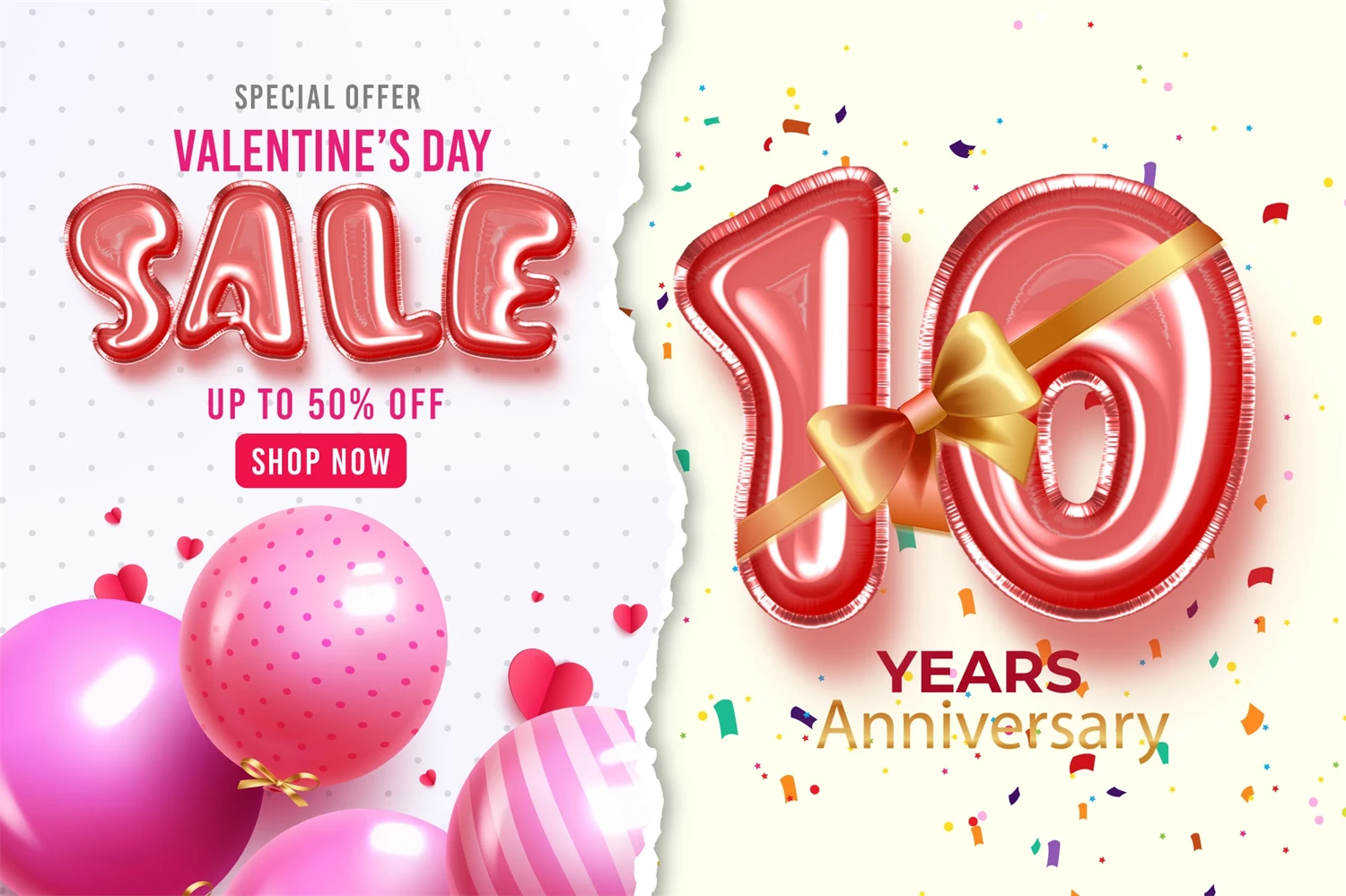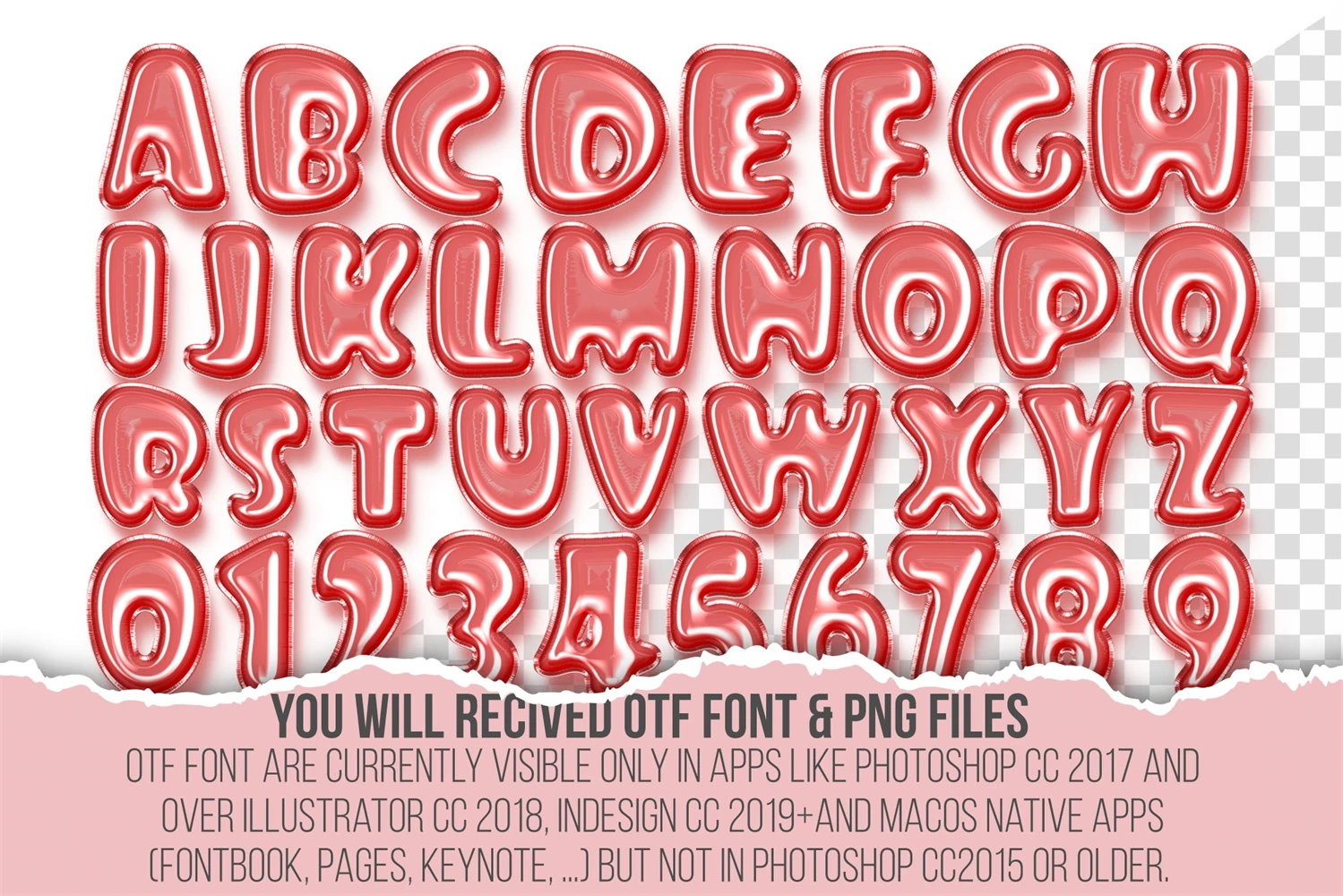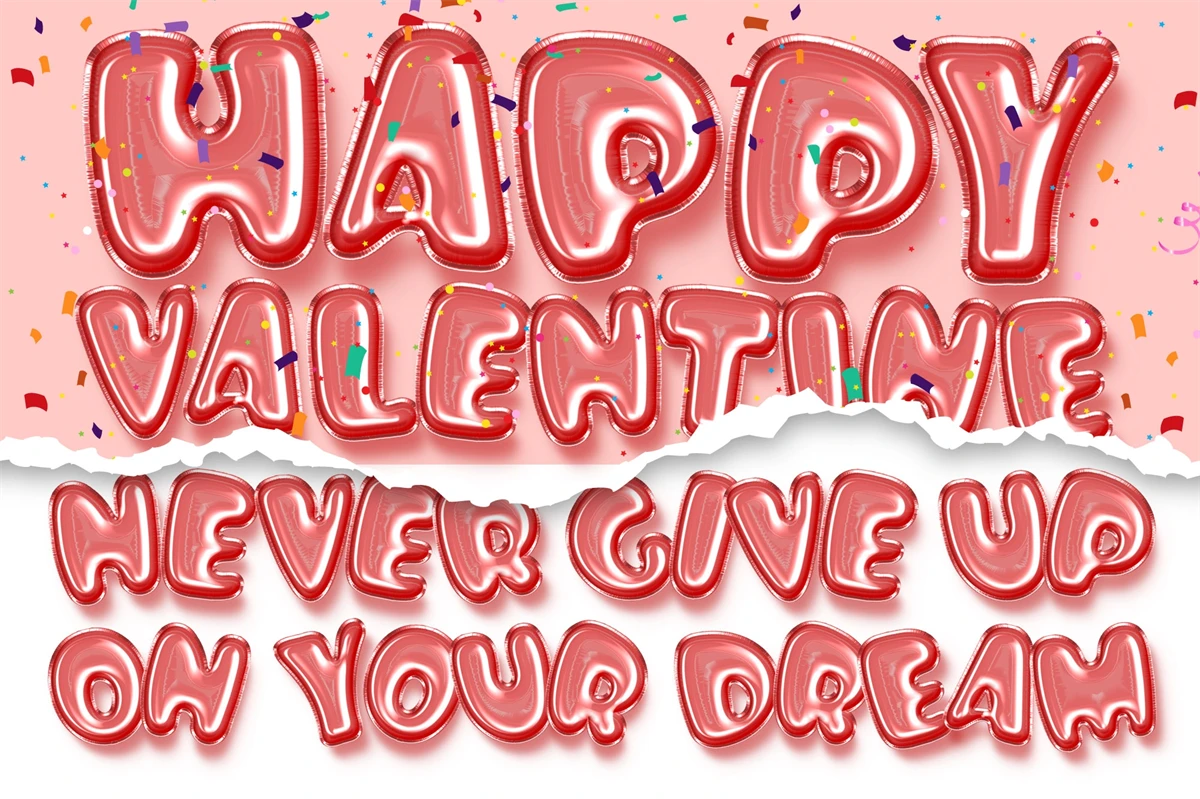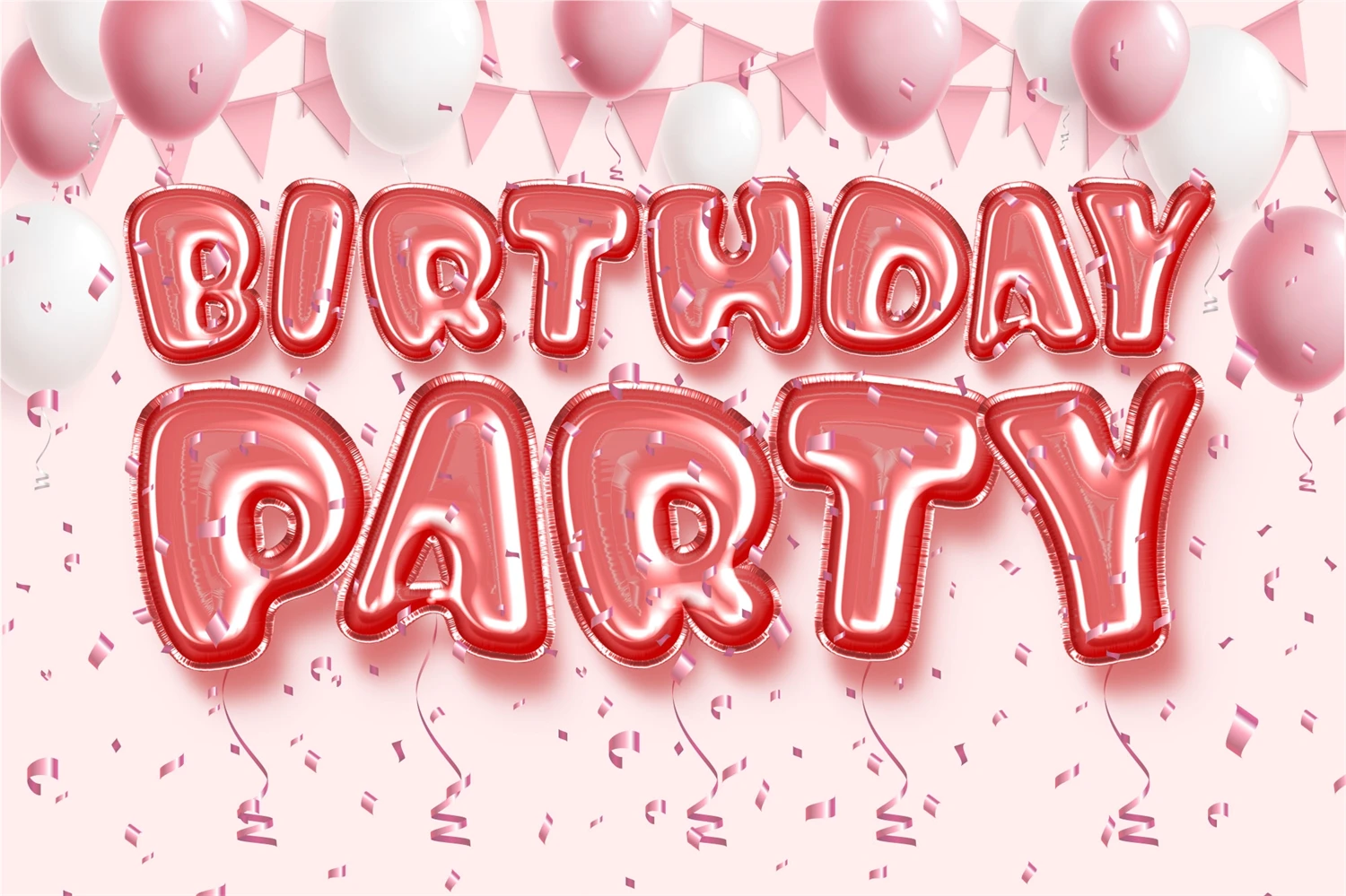
Love is a cute, lovely, modern and friendly color font with high quality of PNG alphabet files. It embodies playfulness and is the perfect choice for any activity, and pretty much anything that requires a jolly touch.